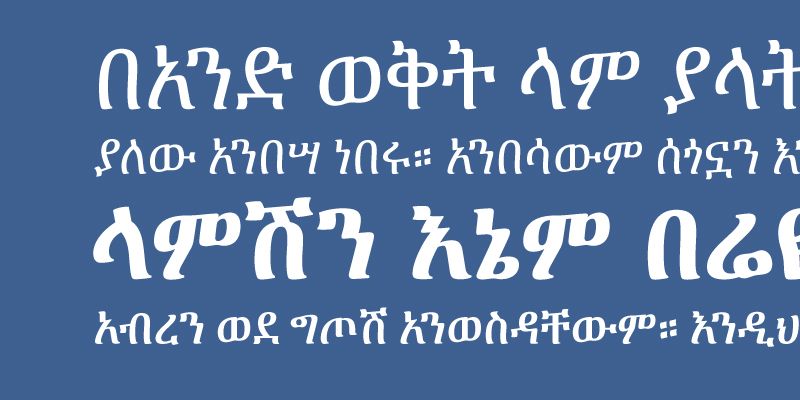
Kigelia Ethiopic Font Free Download is a modern and refined typeface designed to support the Ethiopic (Ge'ez) script, commonly used for languages such as Amharic, Tigrinya, and Ge'ez itself. This font is perfect for projects that require beautiful, legible representation of the Ethiopic script, including cultural publications, educational materials, and multilingual websites.
Kigelia Ethiopic Font Free Download provides clear and consistent letterforms while embracing the unique characteristics of the Ethiopic script. It is ideal for use in book publishing, digital content, signage, and branding where the inclusion of the Ge'ez script is needed.
With its elegant proportions and balanced design, this font ensures readability and visual harmony when working with the Ethiopic script, whether for academic, cultural, or creative projects.